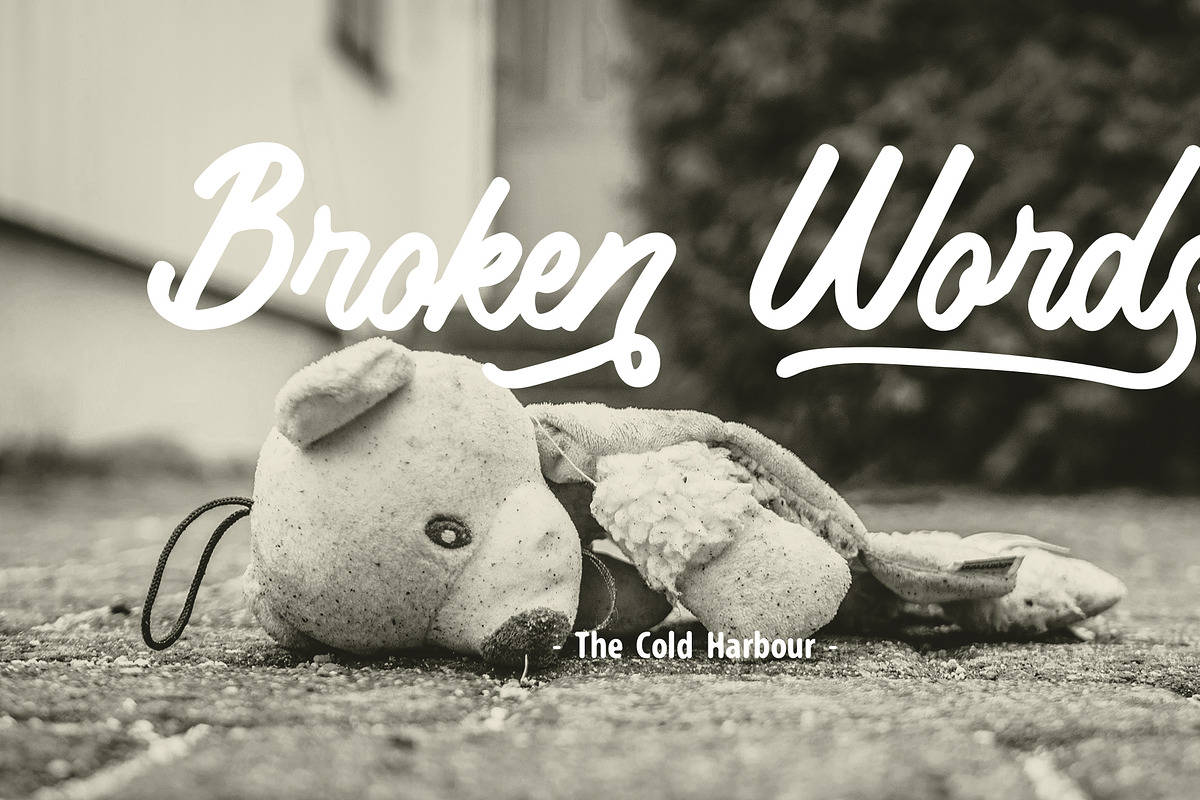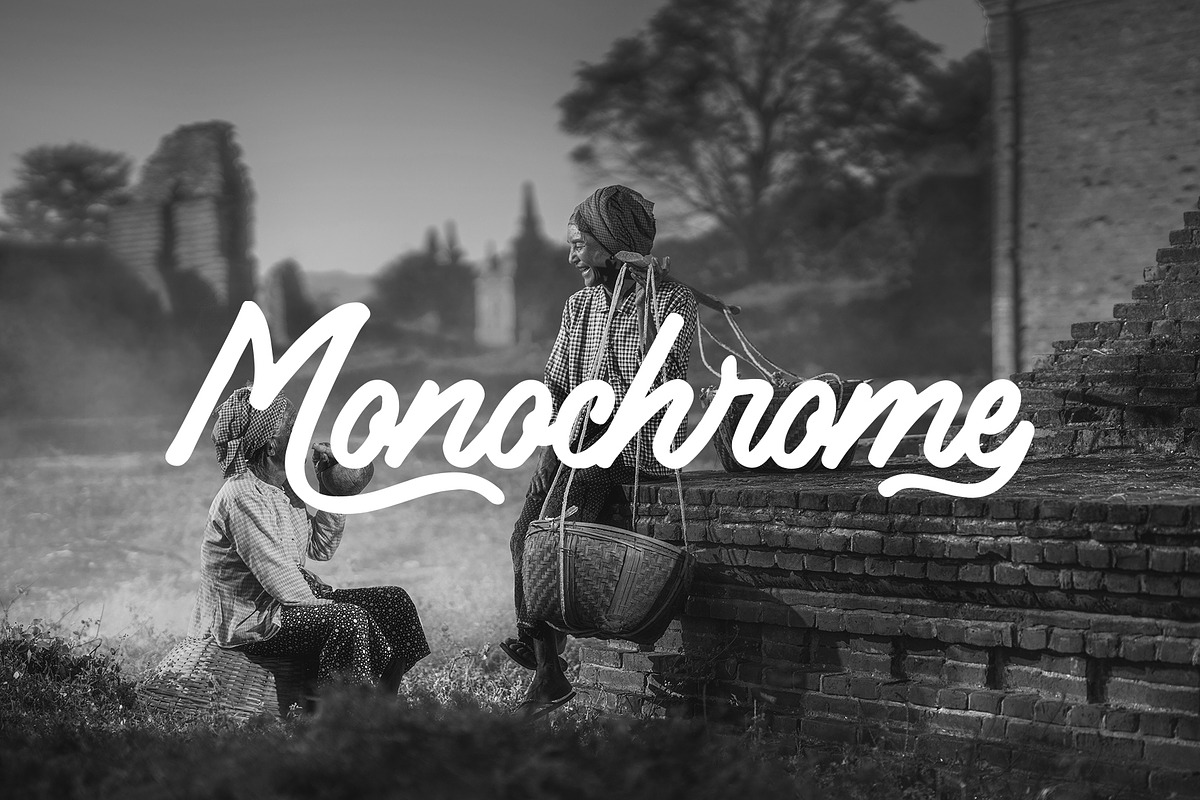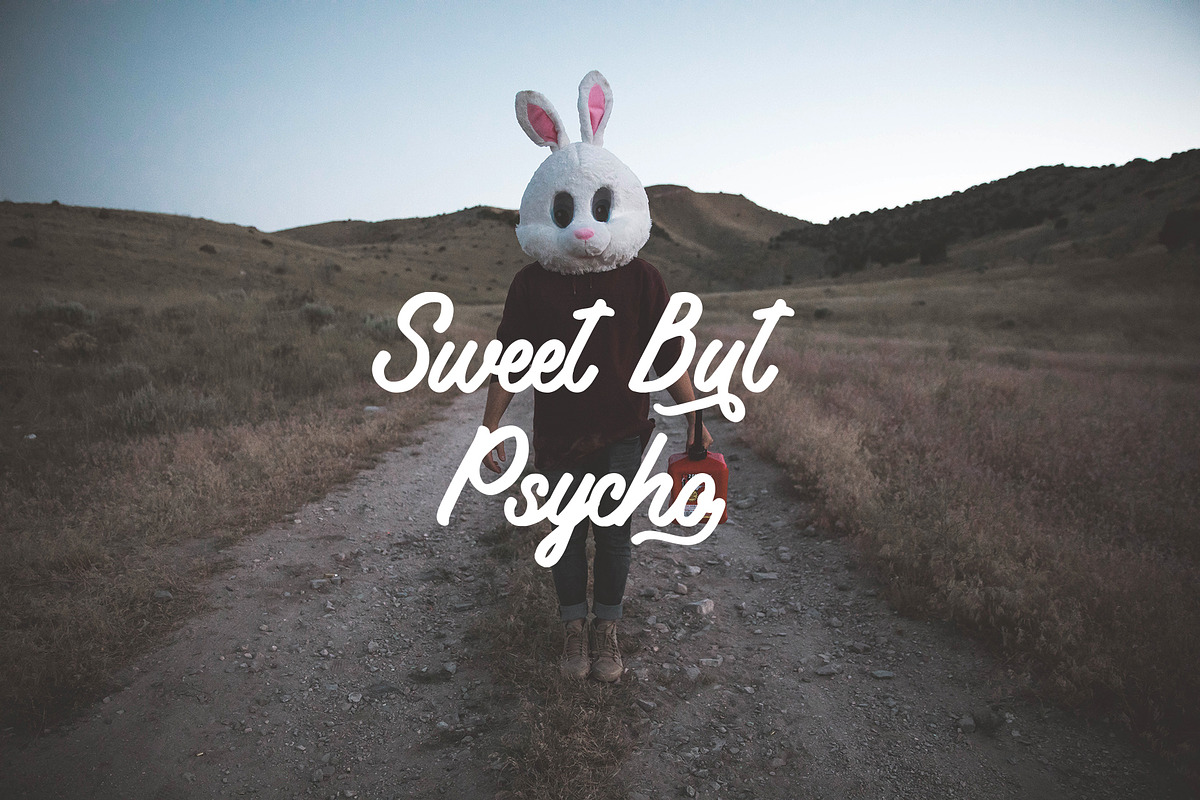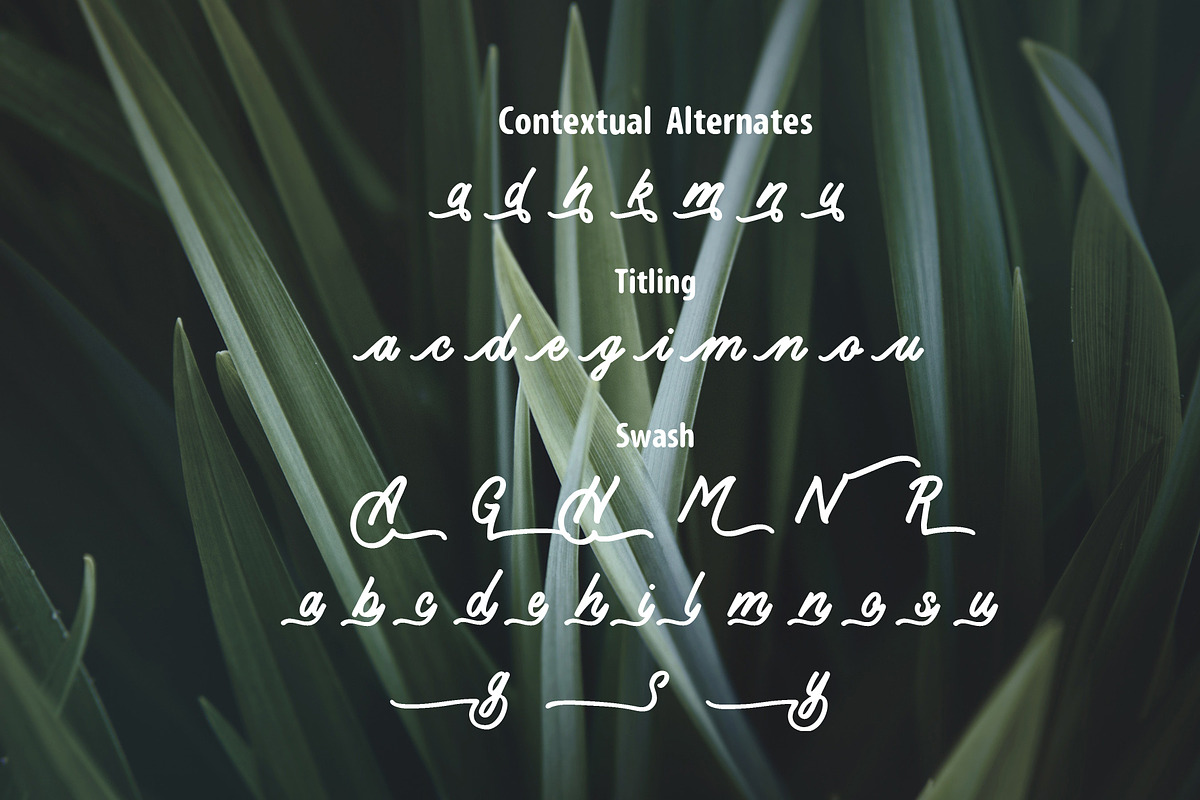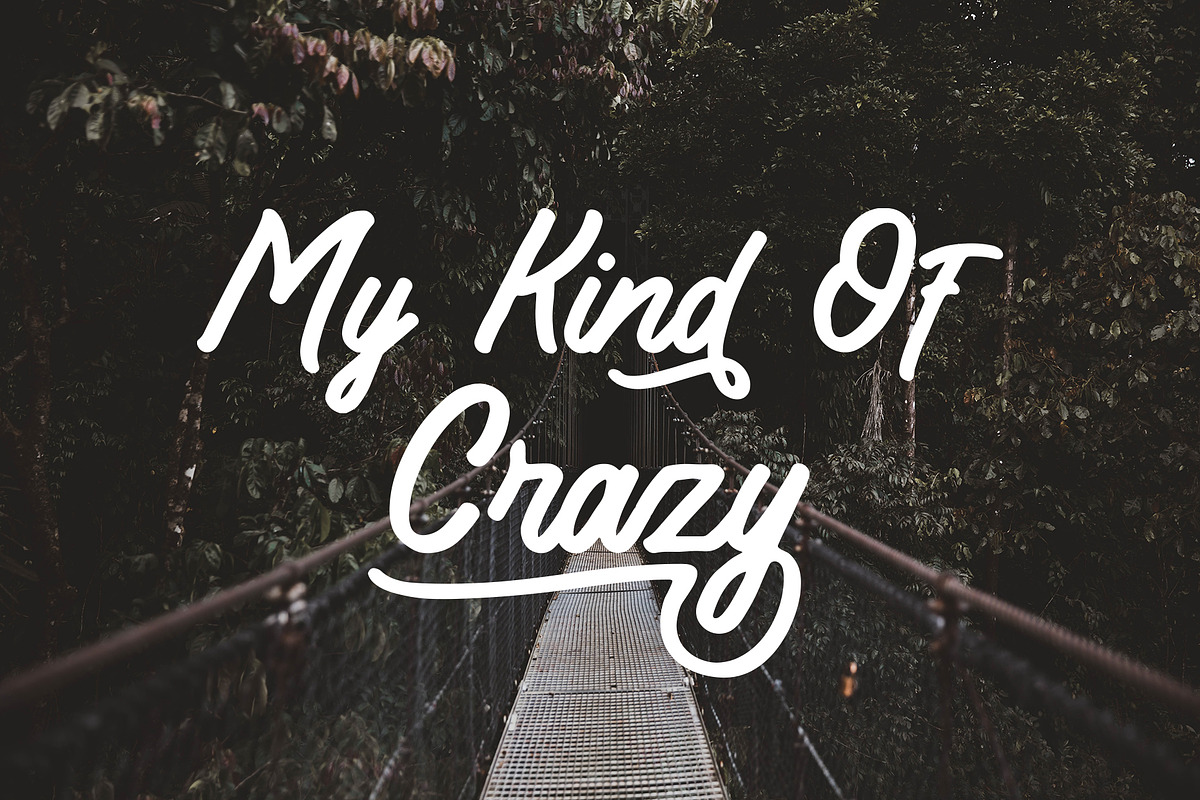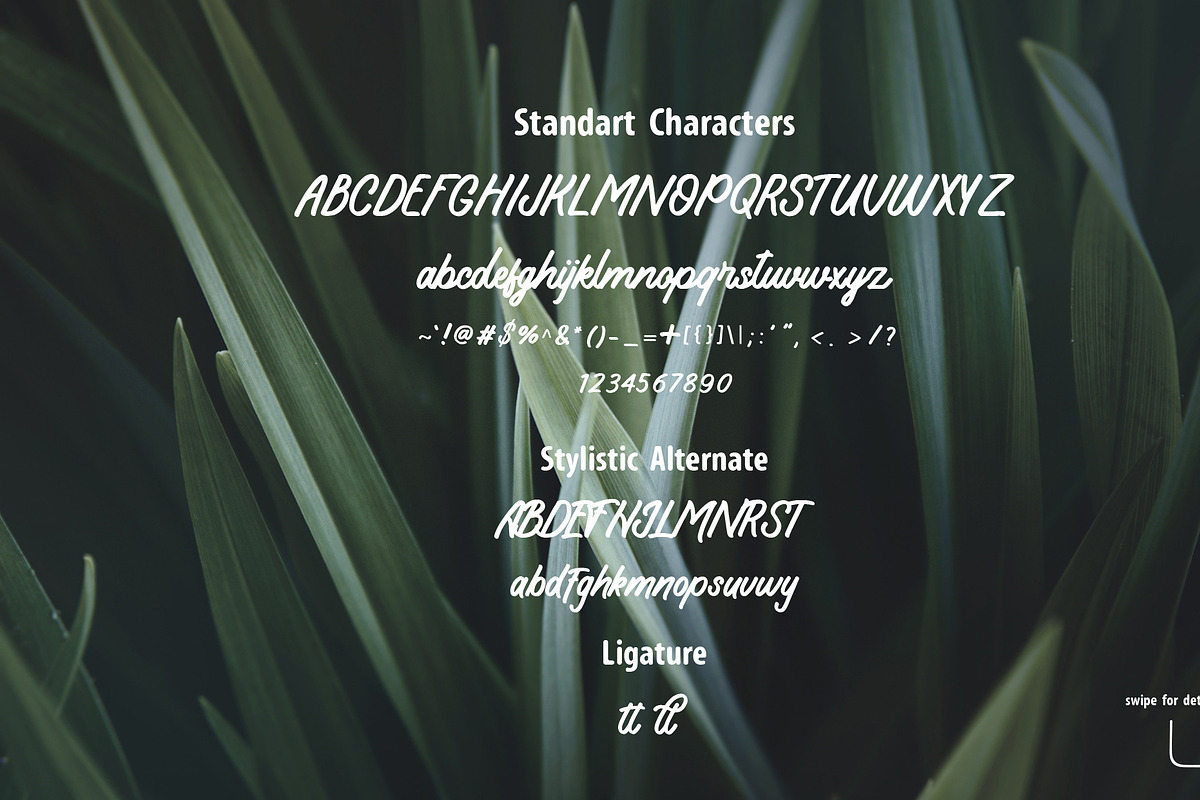
Koeltoerals Fonts
Say Hello To Koeltoerals Fonts.
Create your project with Koeltoeral. good for Logos, quotes, advertisements, wedding invitations, Branding design and many more.
Koeltoerals Standart Uppercase and Lowercase
Koeltoerals Numerals And Punctuatio
Koeltoerals Ligatures
Koeltoerals Stylistic Alternates
Koeltoerals Contextual Alternates
Koeltoerals Fonts by Crump Hand fits naturally into Branding, posters, packaging, typography.